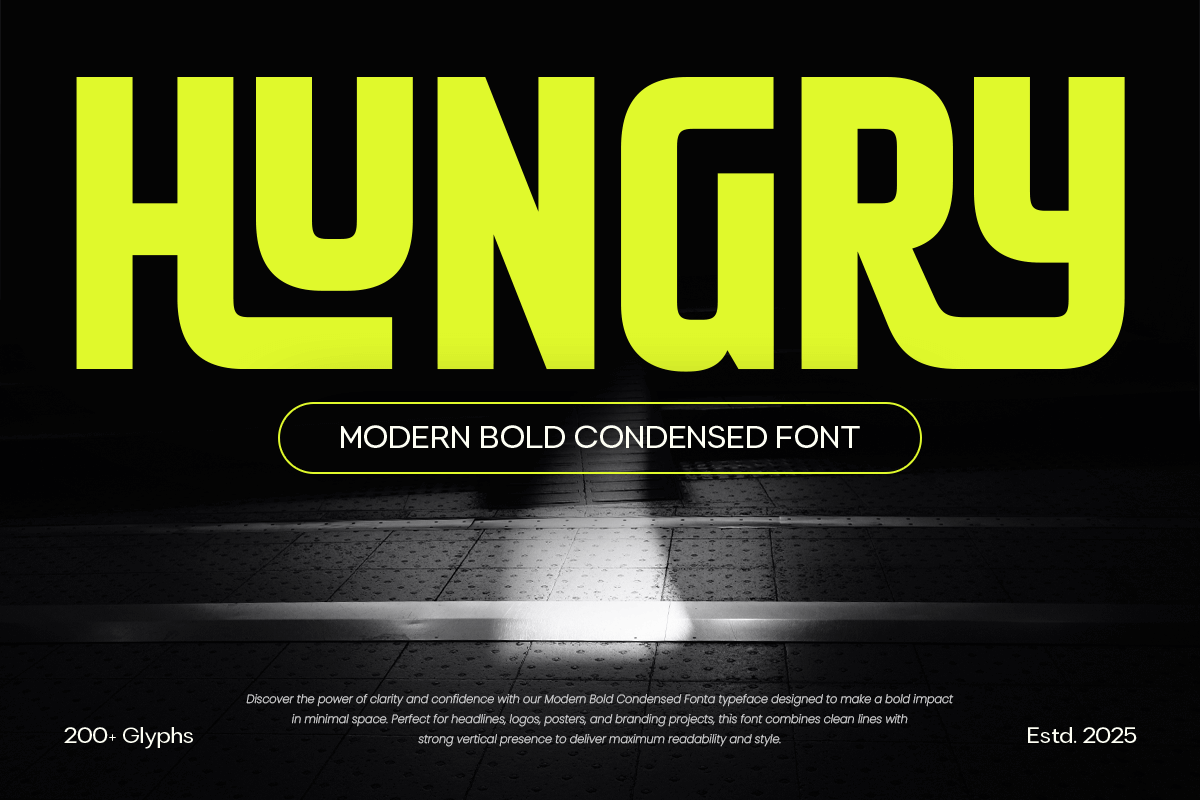
Hungry
-Modern Bold Condensed Font
Hungry - Modern Bold Condensed Font
HUNGRY is a modern bold condensed font designed to make your designs stand out with strength and clarity. Perfect for logos, branding, posters, headings, and digital products, it delivers a confident and contemporary presence.
With compact letterforms and bold strokes, HUNGRY ensures maximum impact without compromising readability. Its versatile design makes it suitable for a variety of professional and creative applications.
HUNGRY – Modern Bold Condensed Font Features
• Bold and condensed character set
• Ready with Regular and Italic Version
• Perfect for branding, logos, and display purposes
• OpenType features for added versatility
Make a bold statement with HUNGRY – a modern, condensed font built for impact and professional designs. ✨